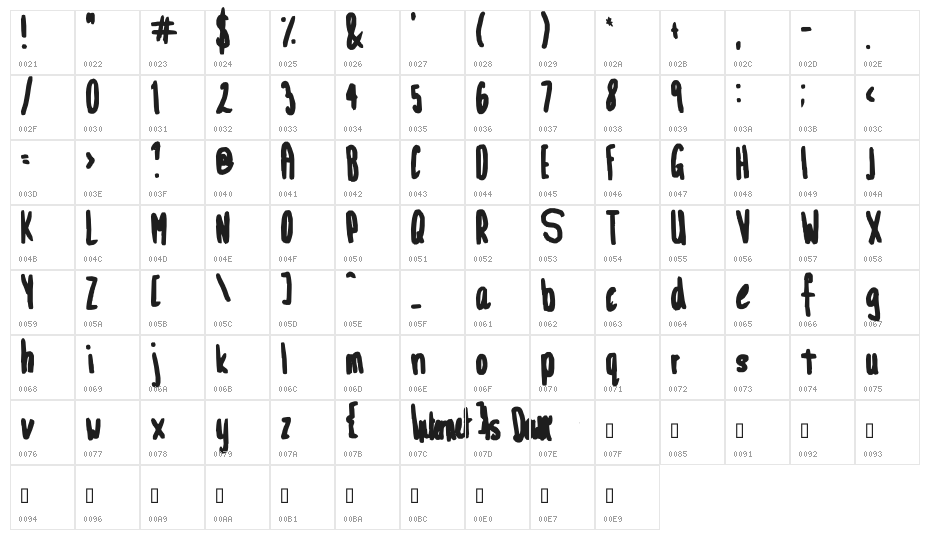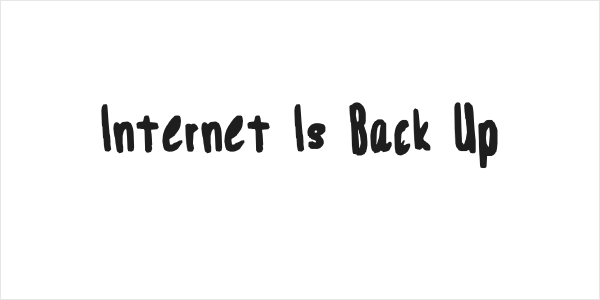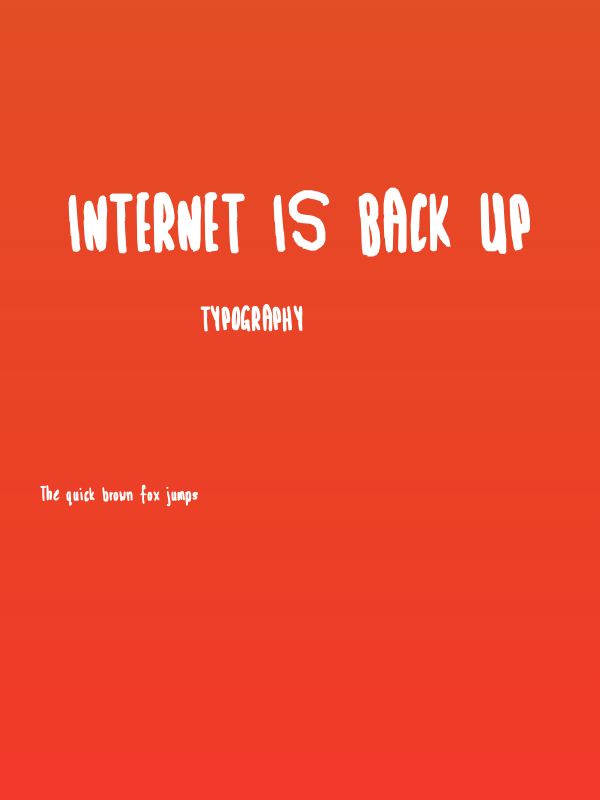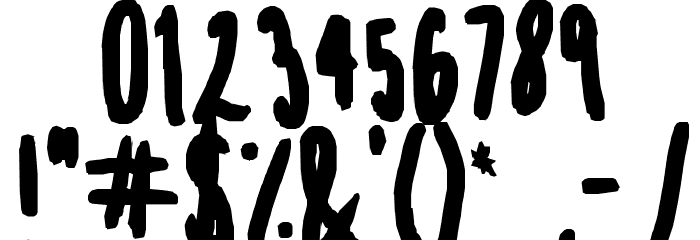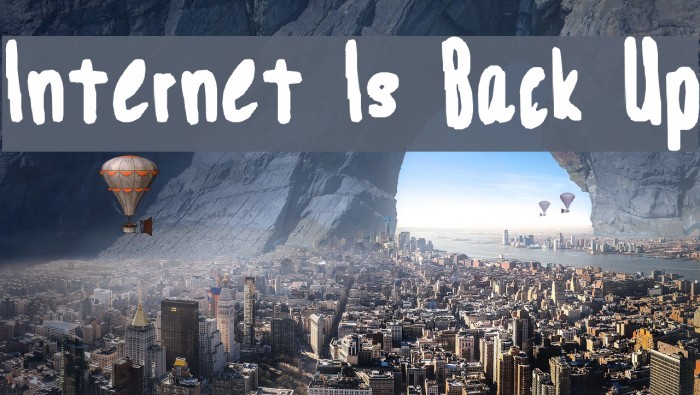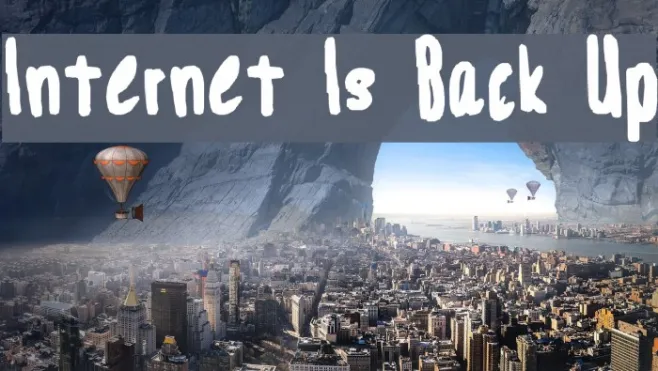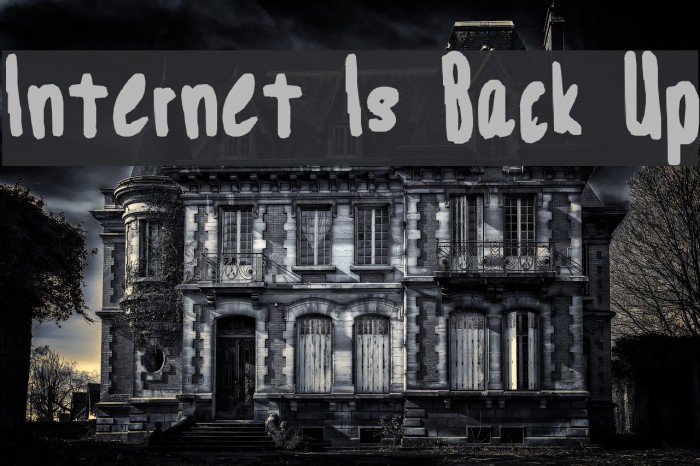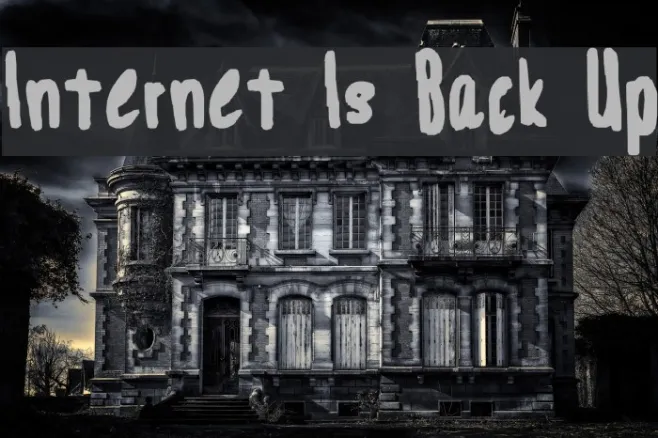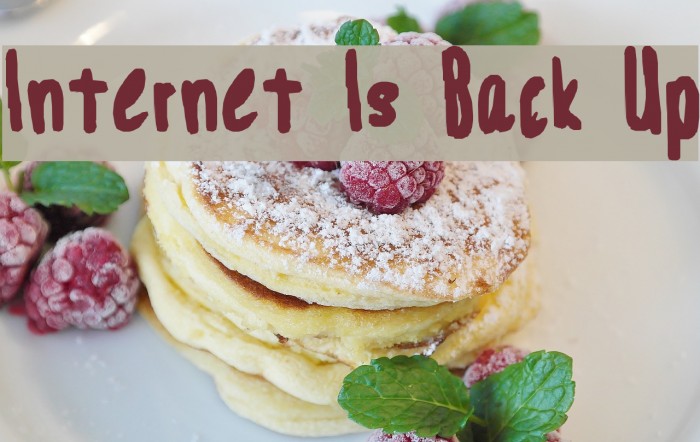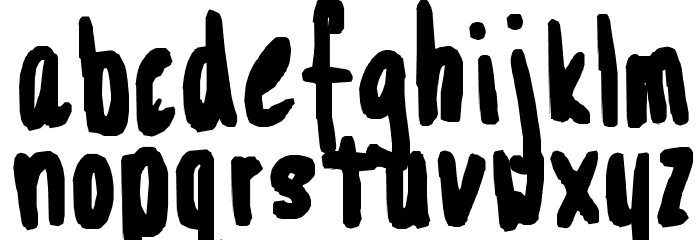
Internet Is Back Up Font
Internet Is Back Up Description
This font features a bold, hand-drawn style with a playful and informal appearance. The characters are thick and uneven, giving it a unique, artistic flair. The uppercase and lowercase letters maintain a consistent style, with rounded edges and varying stroke widths that add to its casual charm. Numbers and special characters follow the same design, ensuring a cohesive look across all glyphs. The font's organic feel makes it stand out, perfect for projects that require a personal touch.
| Proposed Projects | Ideal for children's books, creative posters, casual branding, and social media graphics. |